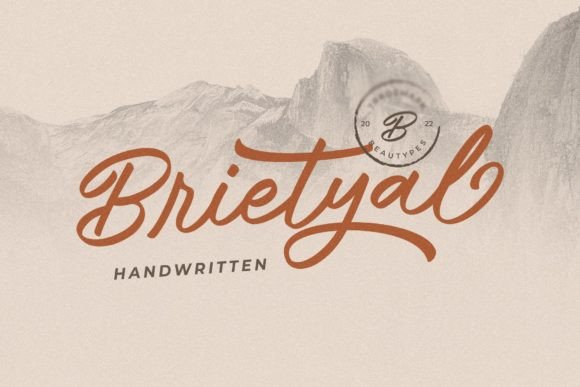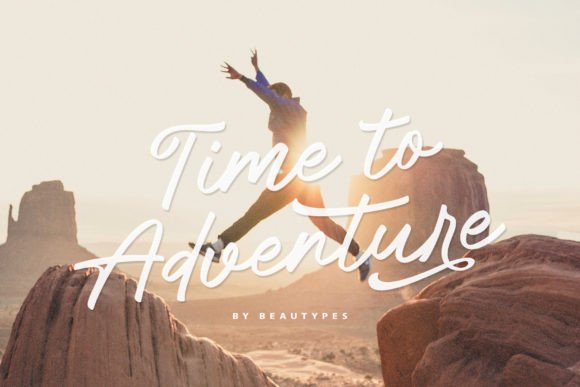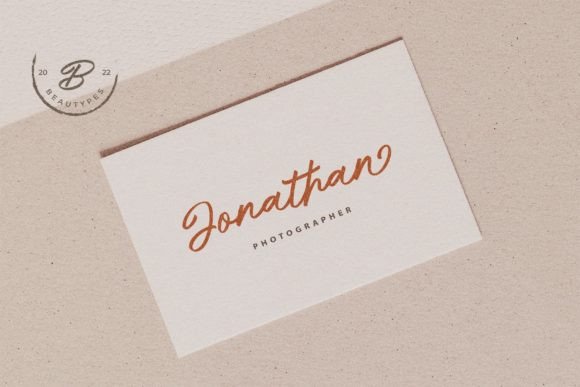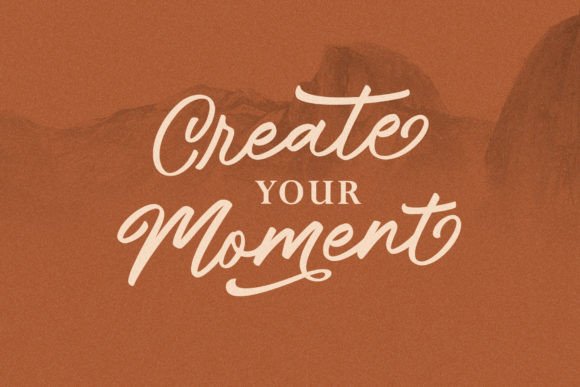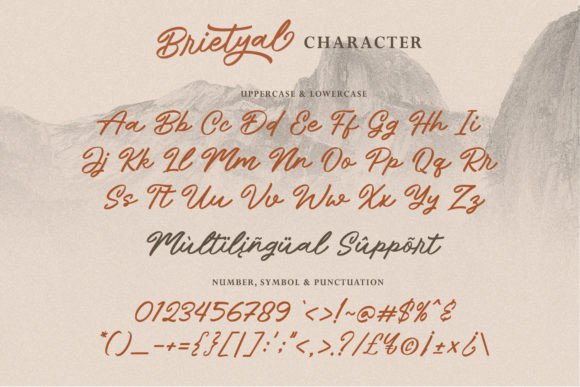
About Brietyal Script Font
Brietyal script font is a fresh and unique handwritten typeface designed to bring a distinctive and elegant flair to your creative projects. With its amazing script style, Brietyal is perfect for logos, stationery, posters, apparel, branding, advertisements, product packaging, labels, wedding invitations, and much more.
Fresh and Unique Handwritten Style
The Brietyal script fon features smooth, flowing strokes with a natural handwritten feel. Its unique letterforms add personality and sophistication to your designs, making them stand out in any medium.
Ideal Uses for Brietyal Script Font
This versatile font works beautifully for:
Logos and brand identities
Wedding invitations and event stationery
Product packaging and labels
Posters and apparel designs
Advertising and marketing materials
Use Brietyal script fon to add a fresh, creative touch to your projects.
Why Choose Brietyal Script Font?
Designers choose Brietyal for its:
Unique and elegant handwritten style
Smooth, readable letterforms
Flexibility across print and digital platforms
These features make Brietyal script font a practical and attractive choice.
Add Freshness and Elegance to Your Designs
Typography shapes the mood of your work. The Brietyal script fon adds freshness and elegance, helping your designs connect with audiences on a personal level. Whether for branding, weddings, or product design, this font enhances your creative vision.
Final Thoughts on Brietyal Script Font
In summary, Brietyal script fon is a fresh and unique handwritten script perfect for designers seeking an elegant and versatile fon. Add Brietyal to your font collection to create memorable and stylish designs.